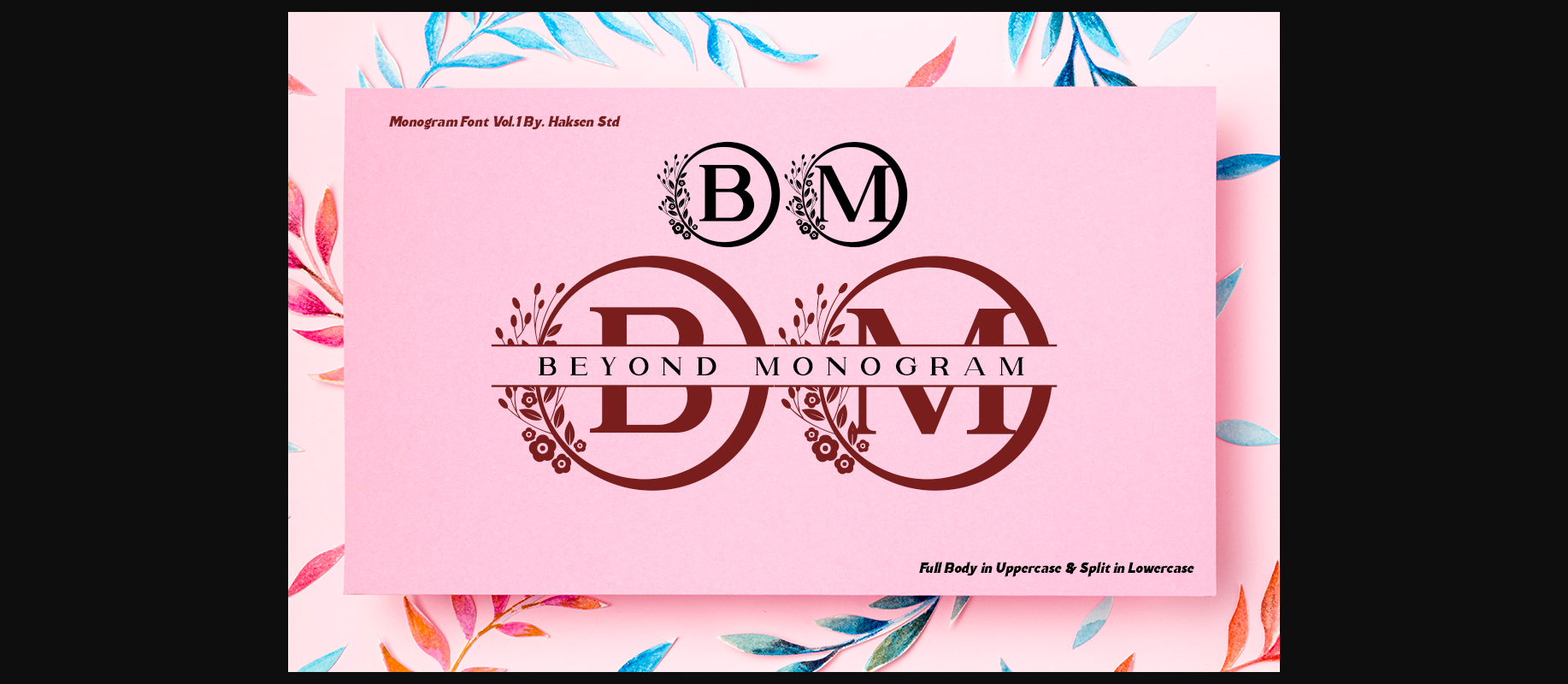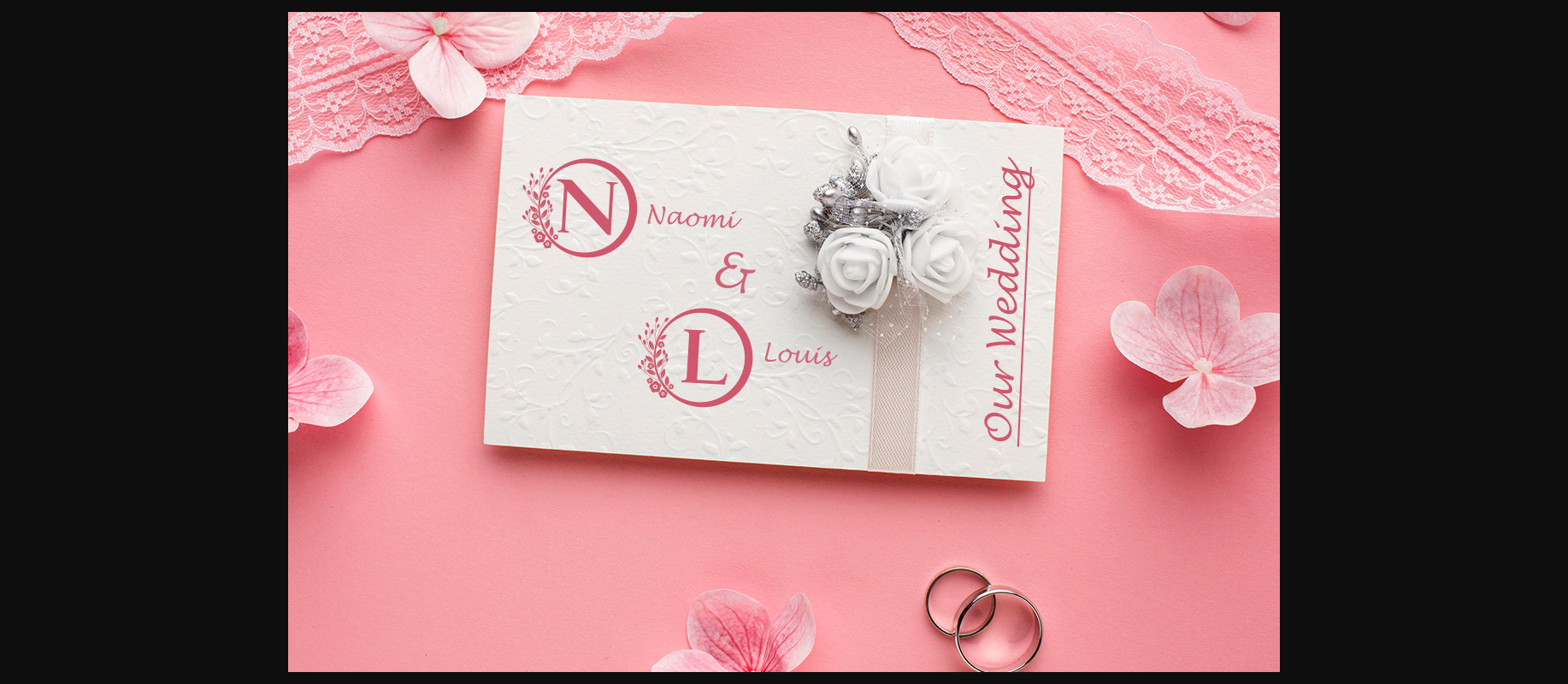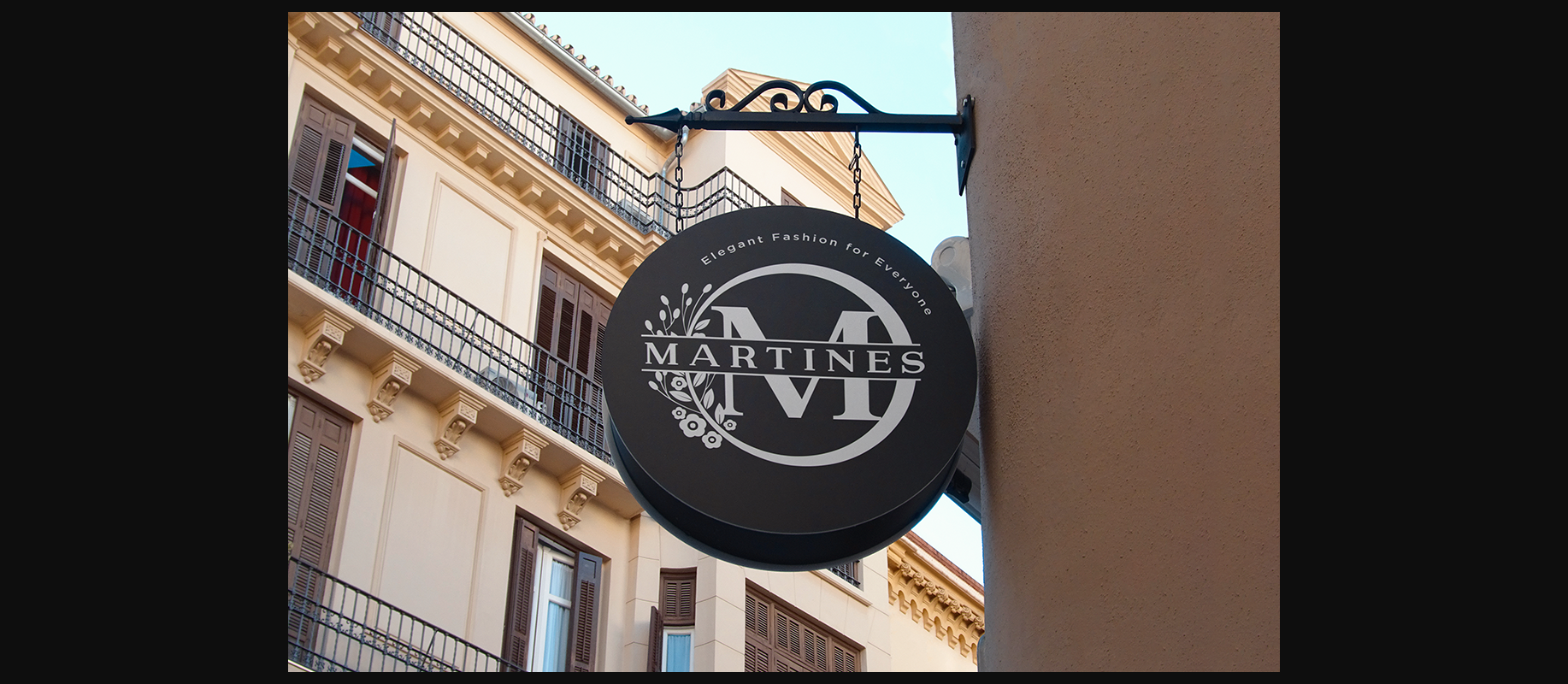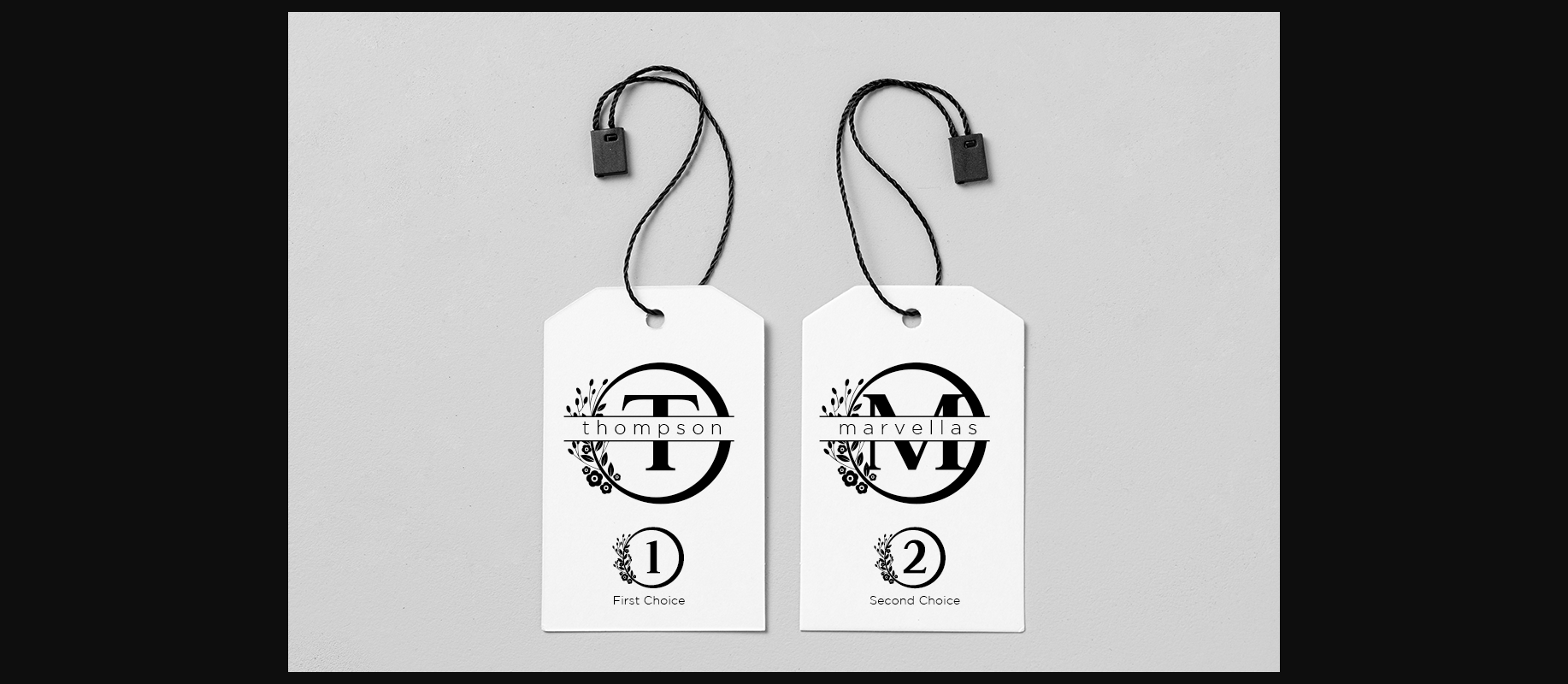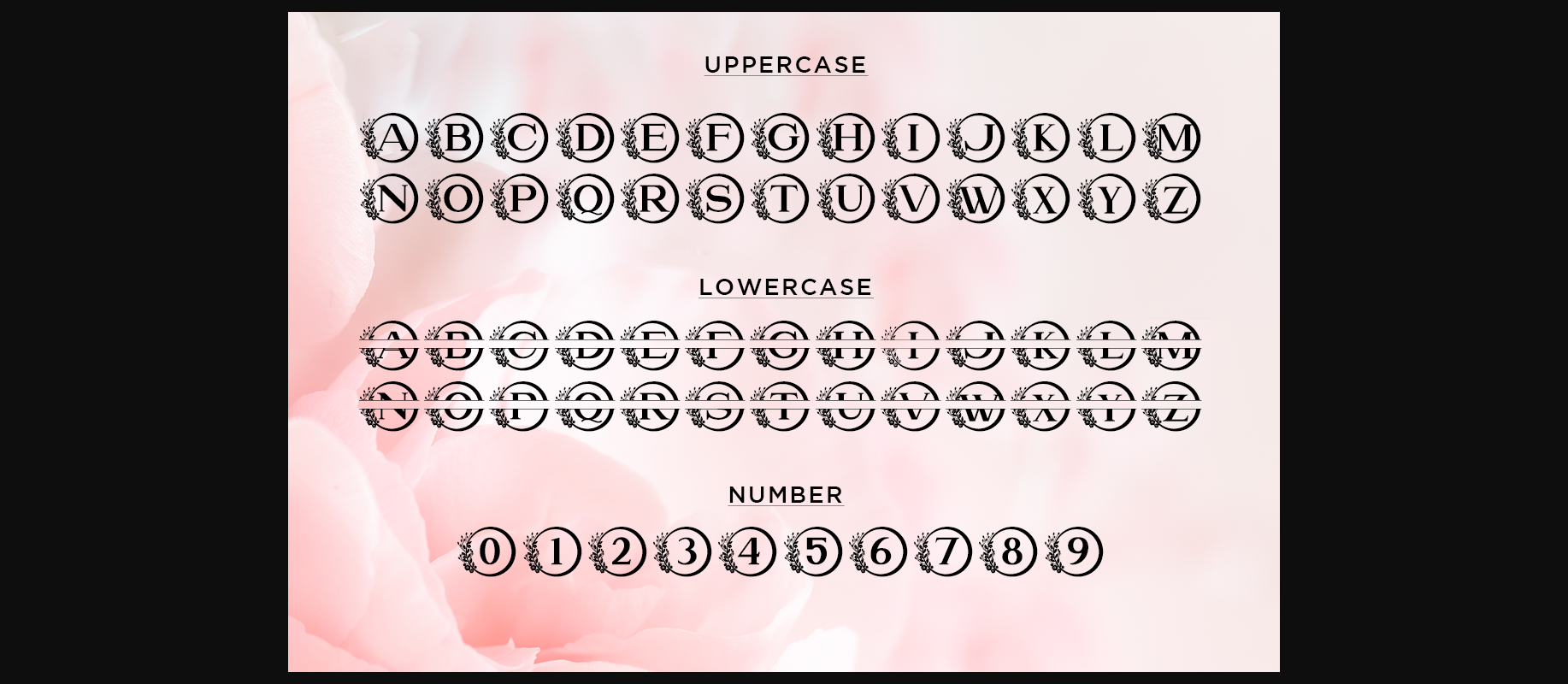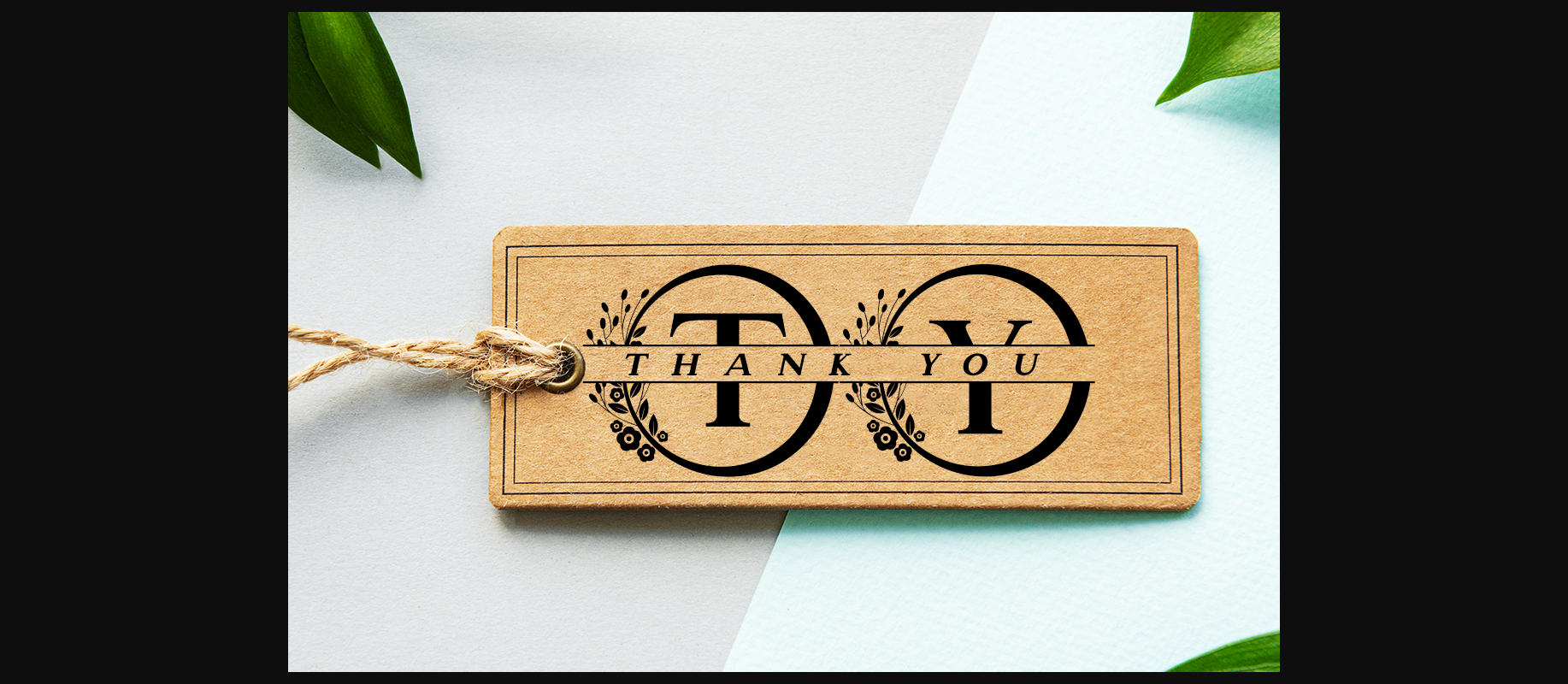
Beyond Monogram Font
About Beyond Monogram Font
Beyond Monogram is a fun and friendly decorative font with a floral theme. Beyond Monogram comes in beautiful details and minimal nodes, great for your crafty purposes, DIY projects, logo for your business, cutting projects, decorations and much more.